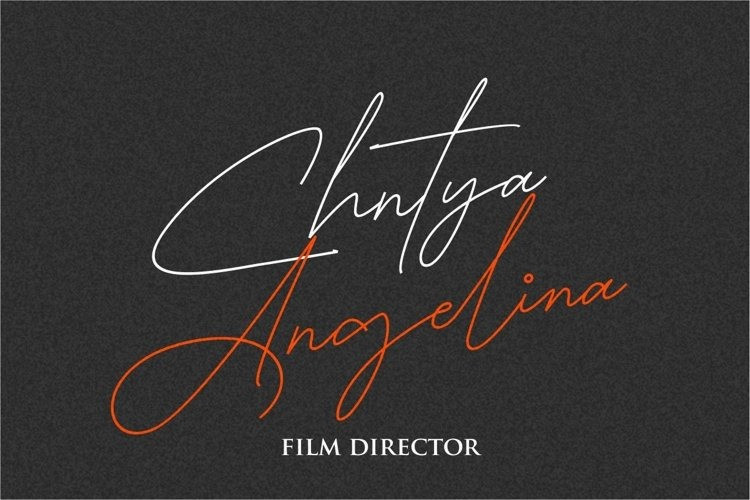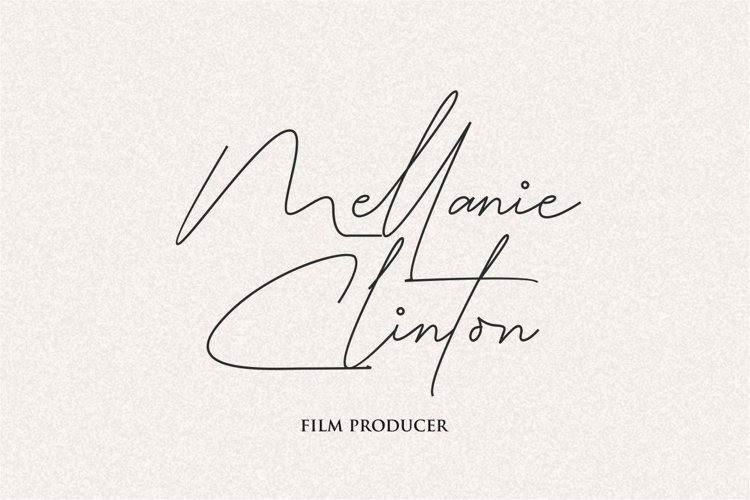
Belania Script Font
Introducing Belania, a Handwritten Font,
Belania is perfect for branding, websites, design invitation, and editorial designs. Includes all upper and lower case letters, multilingual support, punctuation, binding and initial and final swash. everything can be easily accessed using software that supports OpenType.